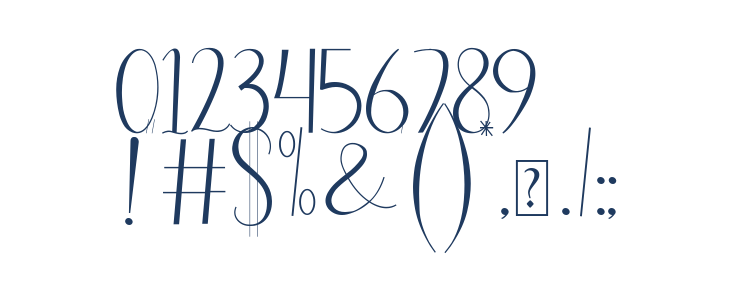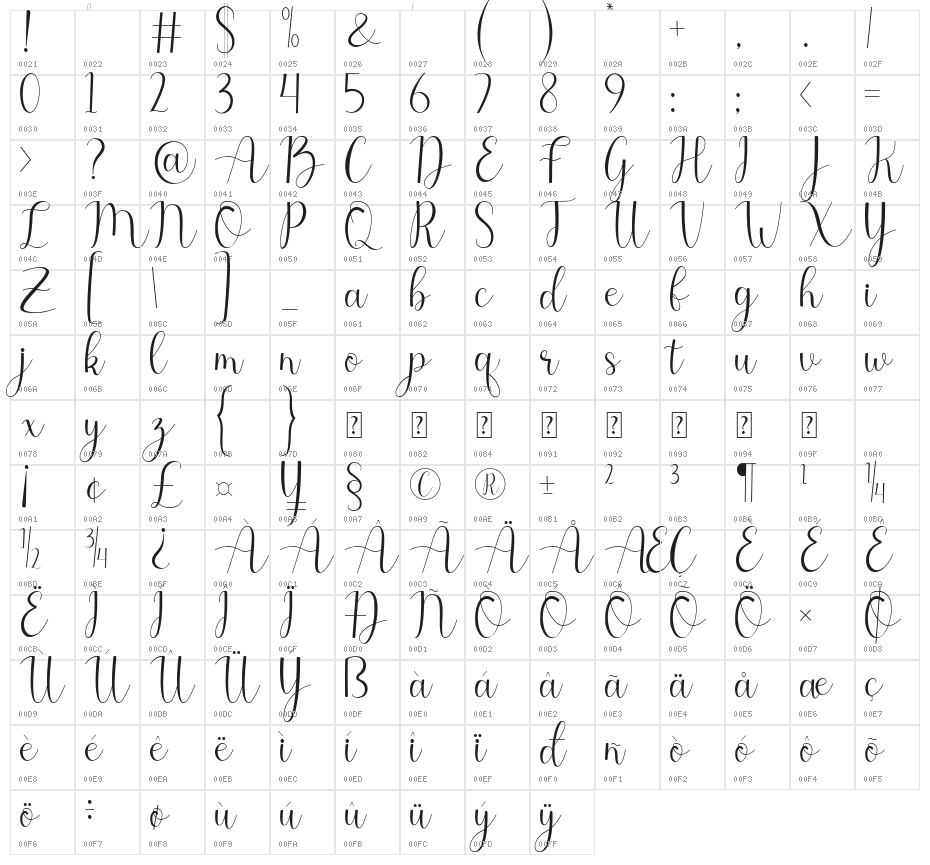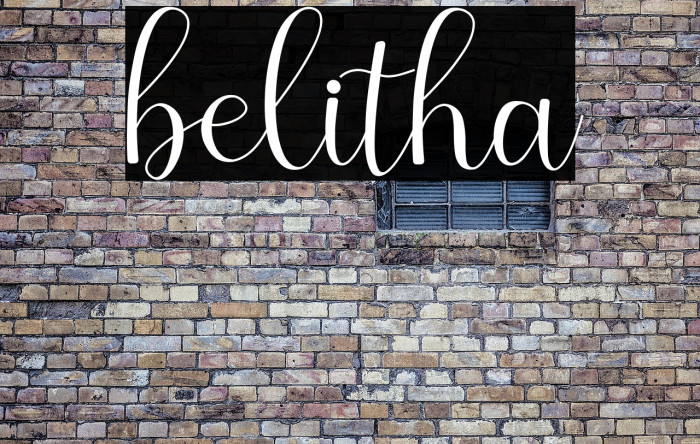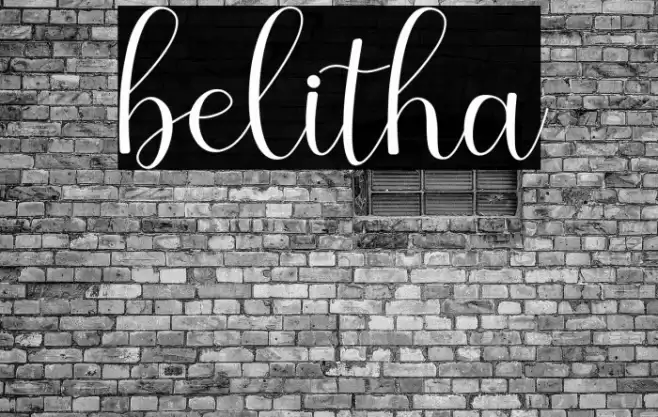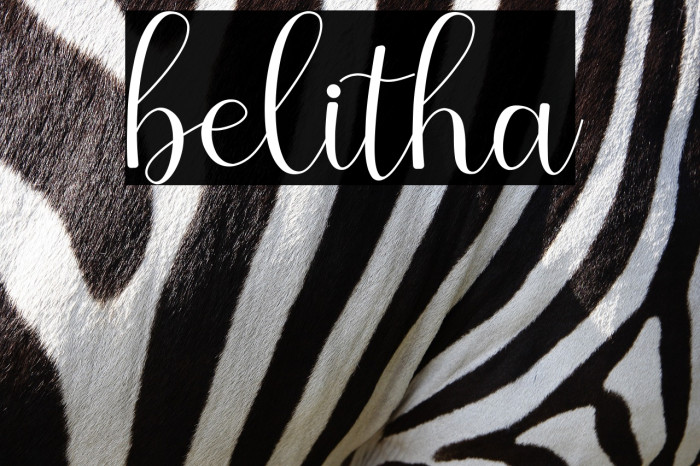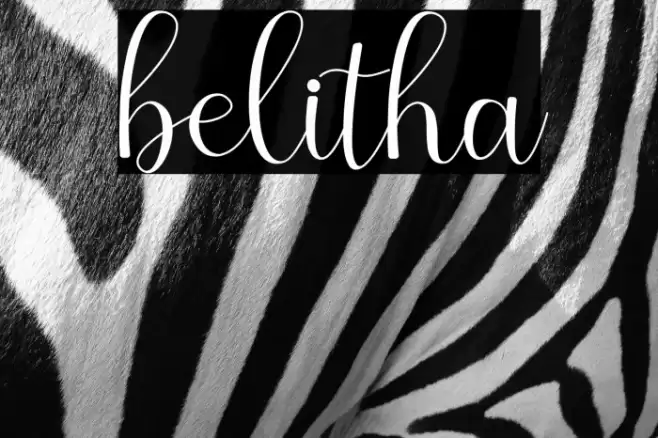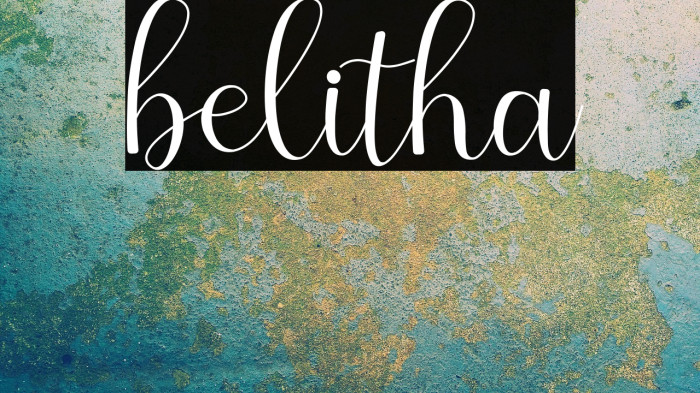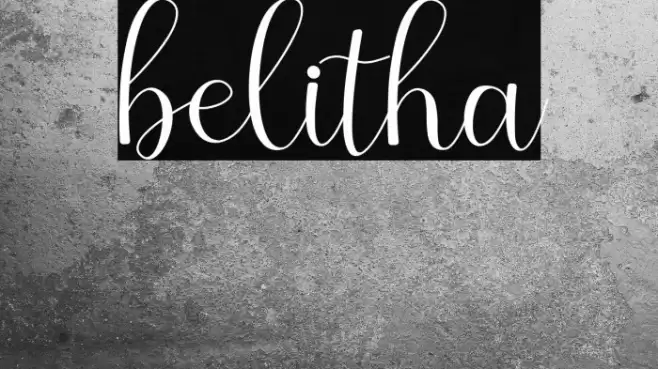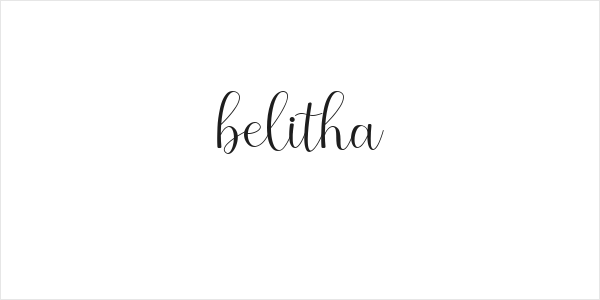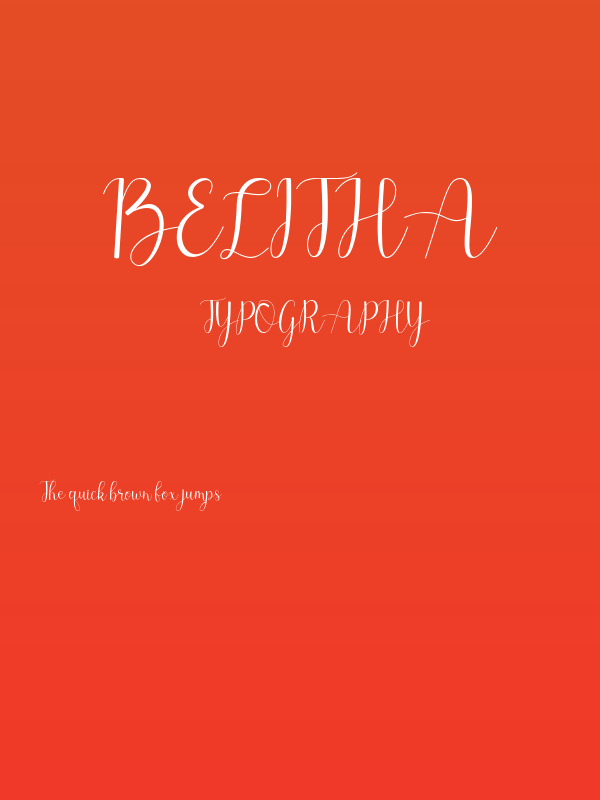
belitha Font
belitha Description
This font features an elegant and flowing script style, characterized by its graceful curves and loops. The uppercase letters are tall and slender, with a delicate, airy quality that adds a touch of sophistication. The lowercase letters maintain a consistent flow, with smooth transitions between strokes, creating a harmonious and cohesive look. The numerals are uniquely styled, with a blend of thin and thick lines that add a modern twist to the classic script design. Special characters are thoughtfully integrated, maintaining the overall aesthetic. This font exudes a sense of elegance and charm, making it suitable for a variety of creative applications.
| Proposed Projects | Ideal for wedding invitations, elegant branding, greeting cards, and upscale packaging. |